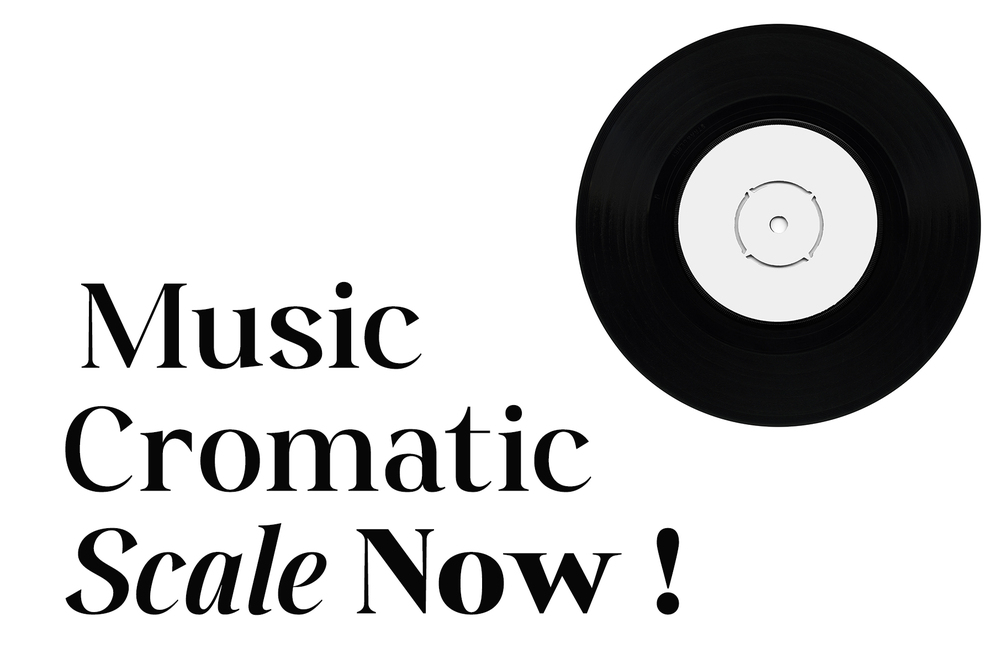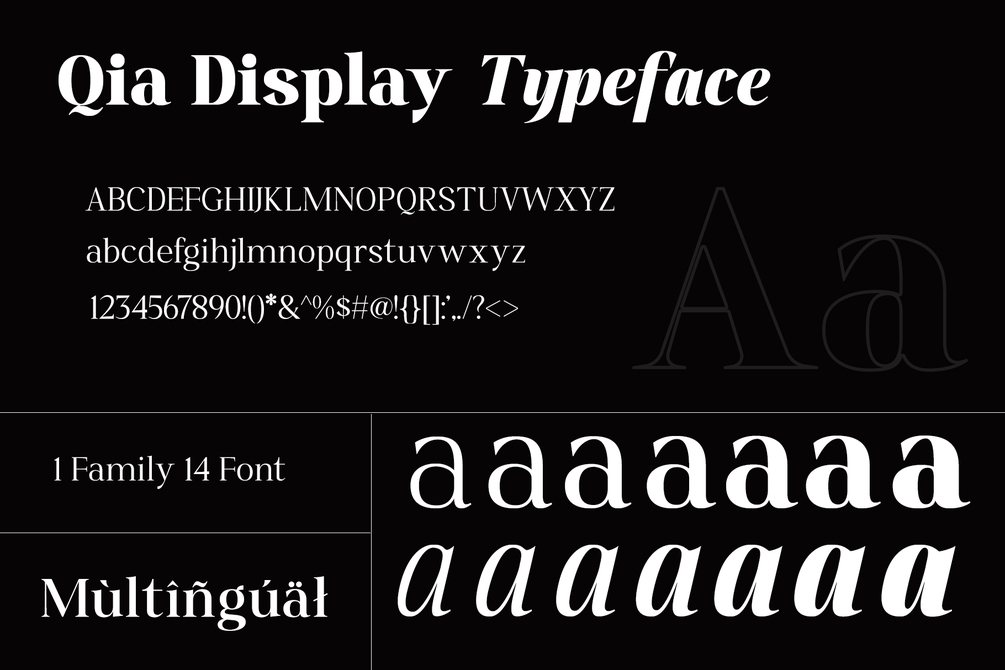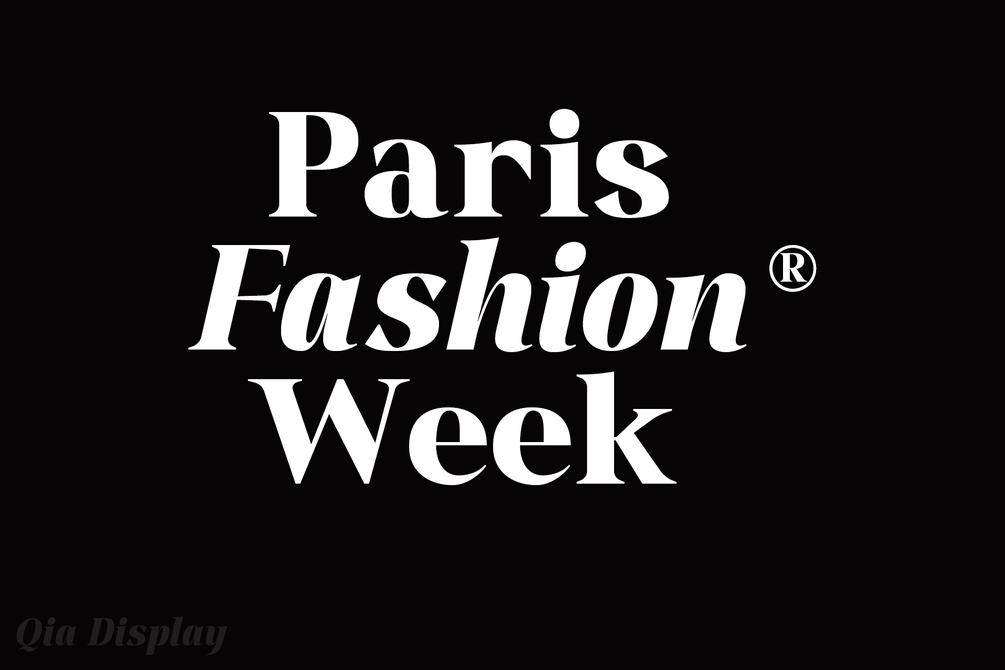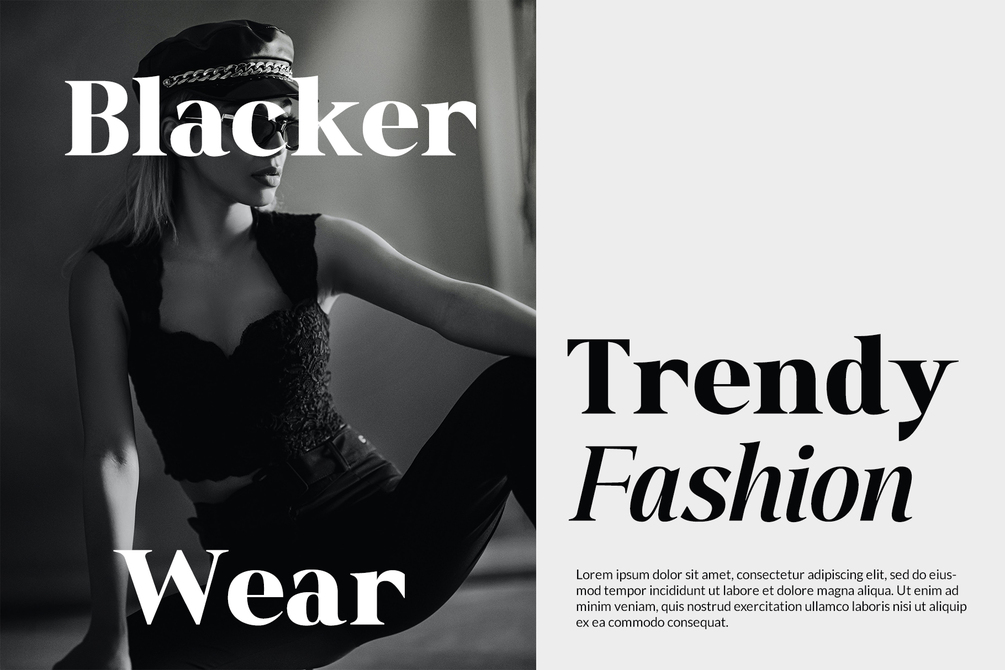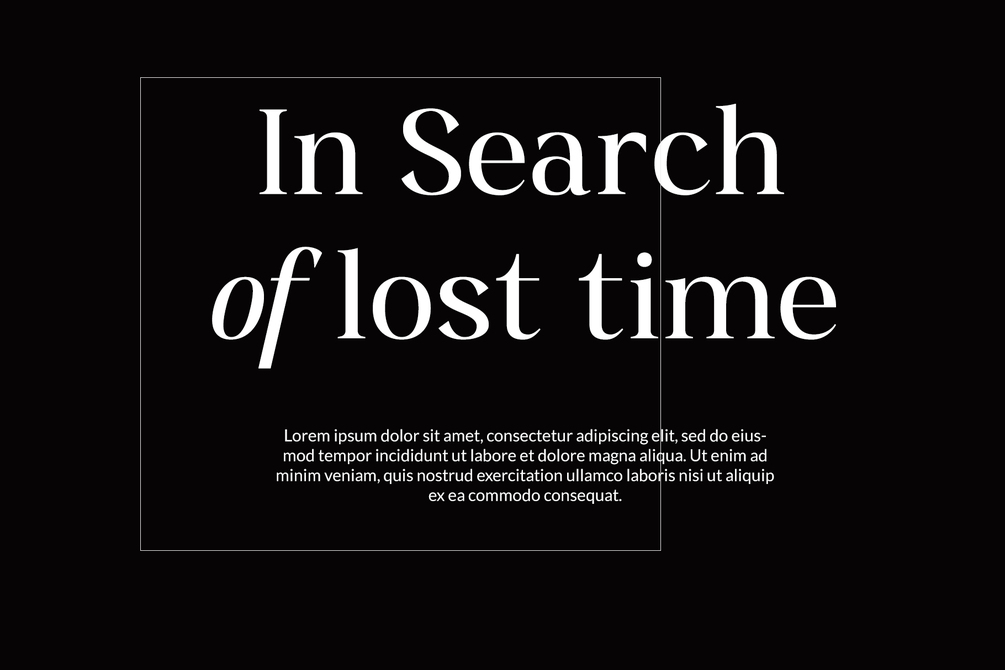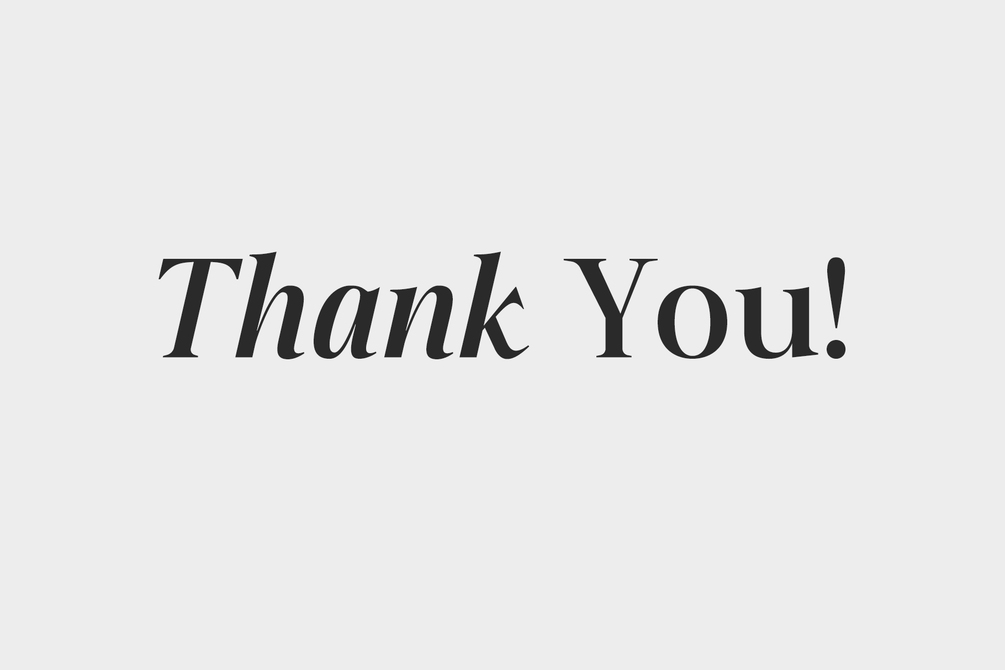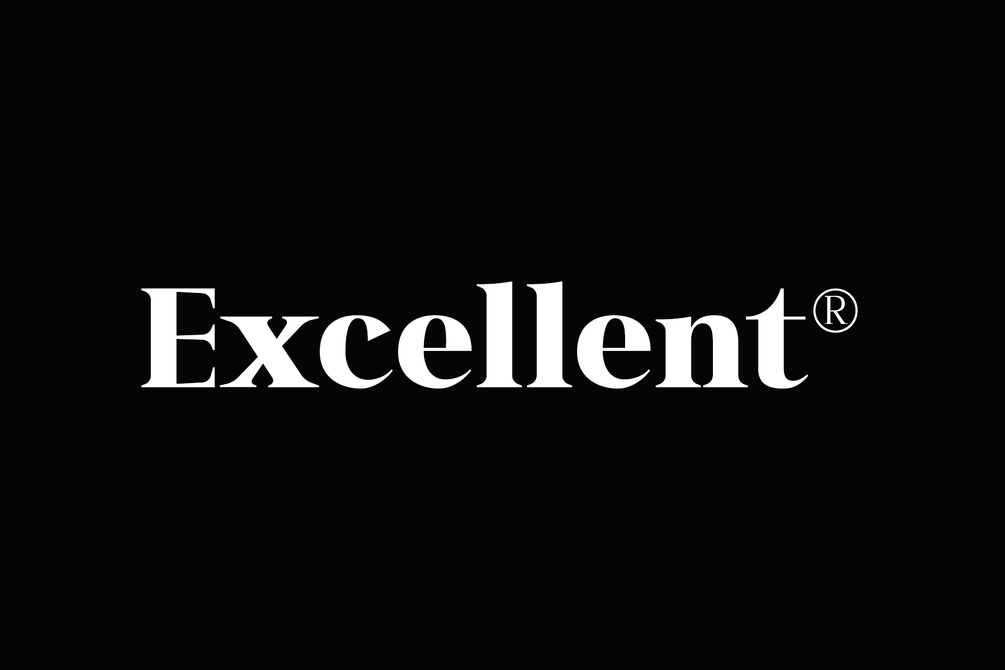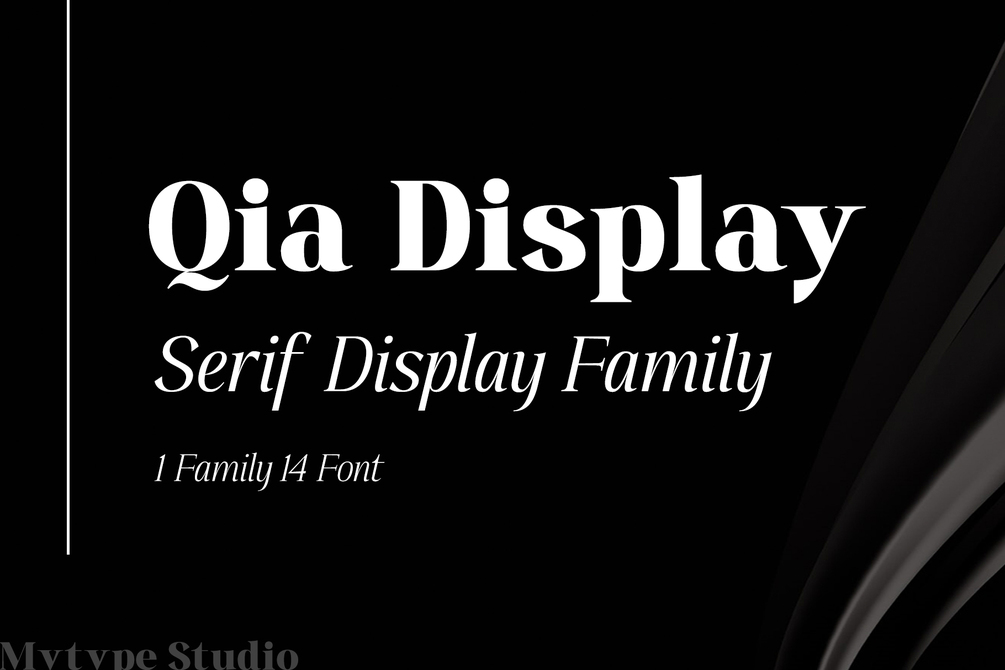
Qia Display - Serif Typeface
Introducing Qia Display: The Complete Display Serif Font Family
Elevate Your Designs with Sophisticated and Versatile Typography
Meet Qia Display, the ultimate display serif font family designed to bring sophistication and versatility to your design projects. With 14 styles in one comprehensive family, Qia Display offers unmatched flexibility, making it perfect for any creative endeavor, from elegant headlines to bold posters.
Key Features:
• Comprehensive Font Family: Qia Display includes 14 styles, providing a complete typographic solution for all your design needs.
• Seven Weights: Available in Light, Regular, Medium, Semi Bold, Bold, Extra Bold, and Black, ensuring you have the perfect weight for any context.
• Italic Versions: Each weight comes with a corresponding italic version, adding elegance and dynamism to your typography.
Why Choose Qia Display?
Sophisticated and Versatile: Qia Display blends classic serif elegance with modern versatility, making it suitable for a wide range of applications.
Perfect for Display Text: Designed specifically for display use, Qia Display excels in large formats. Its detailed and bold structure ensures your text captures attention and conveys your message powerfully.
Complete Typographic Solution: With 14 styles, Qia Display provides a cohesive set of options that ensure consistency and harmony across all your design projects.
Styles and Weights:
• Weights:
• Light
• Regular
• Medium
• Semi Bold
• Bold
• Extra Bold
• Black
• Versions:
• Regular
• Italic
Transform Your Typography with Qia Display
Qia Display is more than just a font family; it’s a complete tool for typographic excellence. Its wide range of styles and weights, combined with the elegance of serif design, make it the perfect choice for designers who value both aesthetics and functionality.